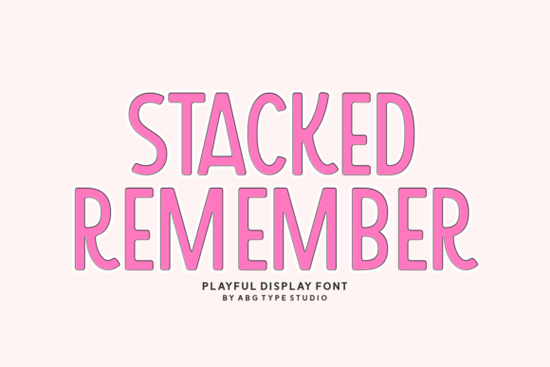
If you’ve been searching for a font that feels both nostalgic and fresh, the Stacked Remember Font might be exactly what your next project needs. It’s not just one typeface it’s a whole collection built around layered, brick-stacked letterforms that give your text dimension and personality. Whether you’re designing birthday invites, teacher worksheets, seasonal merch, or bold logos, this set adapts without losing its charm.
What makes this bundle stand out is how many moods it covers. Need something playful for kids’ party decor? There’s a bouncy version. Want to add farmhouse flair to a spring market sign? You’ve got rustic display options. Planning summer sublimation shirts or Procreate stickers? Yep, there are fonts tailored for those too. It’s like having a toolbox where every tool fits a different creative job no need to hunt elsewhere.
Who actually uses these kinds of fonts?
Designers who work with print-on-demand platforms love collections like this because they reduce the friction of switching between fonts for different products. Small business owners creating their own branding materials think coffee shop chalkboards, boutique packaging, or Etsy listings find value in having multiple styles under one license. Teachers and homeschoolers use the school-friendly variants to make handouts more engaging. Even hobby crafters making vinyl decals or heat-transfer designs appreciate how cleanly these fonts cut and layer.
And if you’ve ever tried using overly decorative fonts for merchandise, you know how tricky spacing and readability can get. The Stacked Remember family avoids that by keeping structure bold but legible even at smaller sizes. That’s rare in display fonts with this much character.
How does it compare to other display fonts?
It’s easy to get lost in Creative Fabrica’s massive library of display fonts. If you liked the chunky retro vibe of Cowboy Howdy, you’ll find similar weight here but with more stacking depth. Fans of Magic Retro might enjoy the nostalgic bounce, while those who prefer clean lines could lean into the included sans serif option. For fantasy lovers, Death Star offers sci-fi edge, but Stacked Remember leans more into warmth and whimsy. And if you’ve used Aaksaraan Valeriana or Gilligan Karl for scripty elegance, consider this your go-to for when you want impact over flourish.
What projects work best with this font set?
- Birthday & Kids’ Themes The “cute” and “festive” variants pop on party hats, favor tags, and growth charts.
- Seasonal Crafts Spring florals, summer BBQ tees, autumn harvest signs each season has a matching tone in the collection.
- Educational Printables Teacher fonts are spaced for clarity, perfect for classroom posters or flashcards.
- Merch & POD T-shirt and sticker-specific versions handle scaling and layering better than generic fonts.
- Farmhouse & Rustic Decor Use the display or farmhouse styles for wood signs, market stall banners, or café menus.
One thing to note: while most fonts in the set are ready to drag-and-drop, the stacked versions sometimes benefit from slight kerning tweaks in design software. Nothing complex just nudging letters closer if they feel too spaced out. But honestly, even straight out of the box, they look intentional and polished.
Any tips before you download?
If you’re still browsing, take a peek at the full Stacked Remember Font listing. You’ll see real mockups of how each style performs in context always helpful before committing.
Quick checklist before you start:
- ✅ Pick the right variant for your medium (print, web, embroidery, etc.)
- ✅ Test spacing at your intended size especially for small text
This isn’t a font you install and forget. It’s the kind you come back to again and again because it solves so many little design problems without looking cookie-cutter. Whether you’re whipping up a last-minute gift tag or building a full product line, having this set in your toolkit saves time and adds character. Just open it up and start stacking.